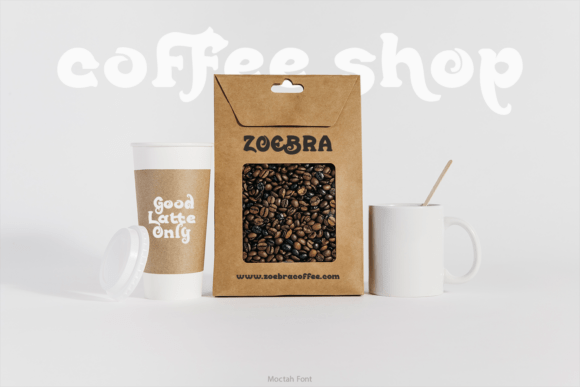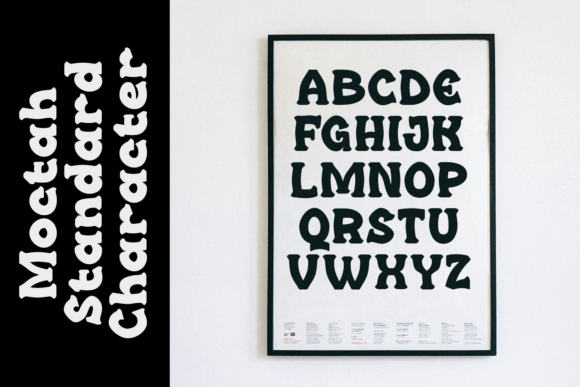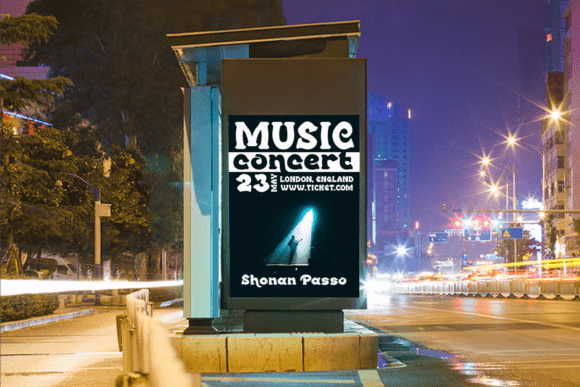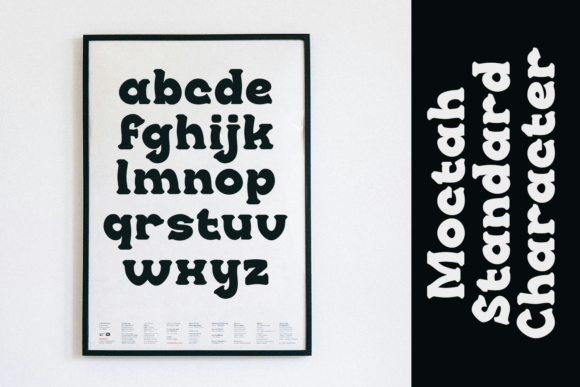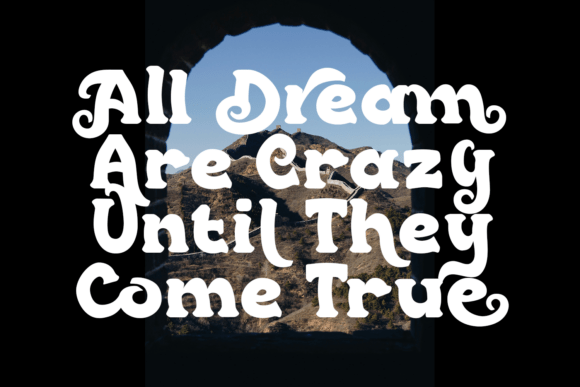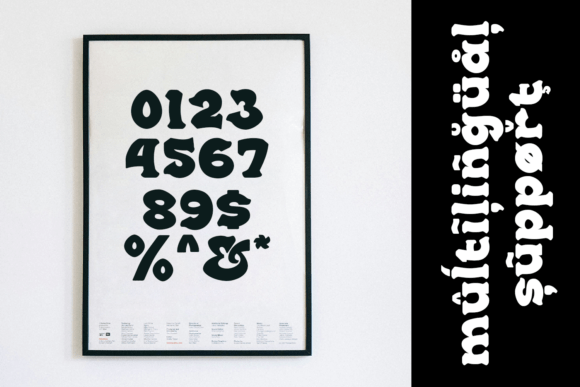
Introduction to Moctah Font
Have you ever stumbled upon an old design project, and suddenly the nostalgia kicks in? The colors, the textures, the fonts – everything comes flooding back to life. For designers, this moment is a treasure trove of inspiration. It’s a chance to revisit the past, breathe new life into classic designs, and make them relevant for the present.
One such design resource that has captured our hearts is the Moctah Font. This bold serif font boasts a 90’s retro style that’s perfect for adding a touch of vintage charm to your creative projects. Whether you’re working on a branding campaign, product packaging, or a poster, Moctah Font is an excellent choice for designers looking to add a high-quality, unique element to their designs.
Key Features of Moctah Font
- High-quality design resource ideal for creative projects and various applications.
- Moctah Font features a transparent background, making it suitable for use on various backgrounds and designs.
- Unique and stylish design with a mix of modern and vintage elements, perfect for adding a touch of elegance to your work.
- Includes a comprehensive character set, making it suitable for use in various languages and creative projects.
Honest Review: Moctah Font
What works well with the Moctah Font is its versatility. It’s suitable for a wide range of creative projects, from web design to print materials. The font also has a transparent background, which allows for seamless integration with other design elements. The style is modern and sleek, making it perfect for any design project.
- ✨ Versatile and suitable for various creative projects
- ✨ Transparent background for easy integration with other design elements
However, there are some limitations to the Moctah Font. The font selection is limited to a single style, which may not be ideal for projects that require multiple font options. Additionally, the font may not be suitable for very small text sizes, as it may become difficult to read.
- ⚠️ Limited font selection
- ⚠️ May not be suitable for very small text sizes
Overall, I’m really impressed with the Moctah Font. It’s a great design resource that’s perfect for any creative project. While it may have some limitations, it’s definitely worth checking out for your next design project.
Tips for Getting the Most Out of Moctah Font
Experiment with different font sizes, colors, and combinations to create a unique look that suits your design needs. Additionally, consider using the font in conjunction with other design resources to create a cohesive and professional design.
Common Use Cases for Moctah Font
The Moctah Font is ideal for use in various creative projects, including graphic design, digital art, and typography. Its high-quality design and unique style make it a versatile resource for designers and artists looking to add a touch of sophistication to their work.
Alternatives to Moctah Font
Noto Sans is a high-quality, free download font suitable for creative projects that require a clean and modern design. It is particularly useful for designs that require a transparent background. Noto Sans is an excellent alternative to Moctah Font for designers looking for a versatile font that works well in various design contexts.
Yes, the Moctah Font comes with a transparent background, making it ideal for use with images or other design elements. This feature allows you to easily combine the font with other design resources, creating a seamless and professional-looking design.